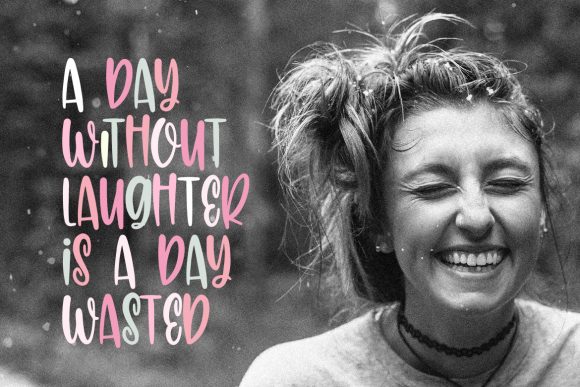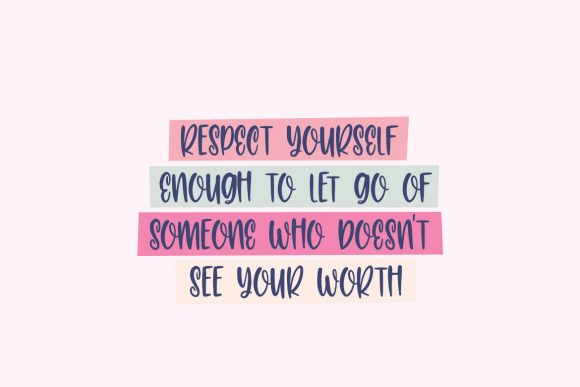
Carolina Font
db-ku.com - Script & Handwritten -- Carolina is a cute and friendly handwritten font. Featuring a curvy, readable and down to earth style, this font will make each of your designs look gorgeous.